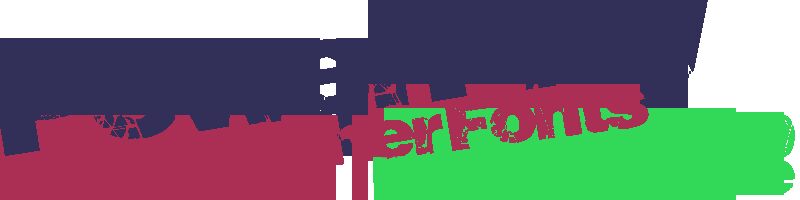
PowerPlay by Xerographer Fonts is a free eroded display font with broad, forceful capitals. Deep fractures split the solid strokes into sharp shards and tangled, web-like lines. The damage is dense and dramatic.
Those internal cracks can echo shattered glass, distressed sports graphics, or comic-book impact art, making the font useful for game covers, action posters, and music merchandise. Its aggressive scale and broken surfaces are best suited to designers working in extreme sports, heavy music, or high-impact entertainment branding.
PowerPlay